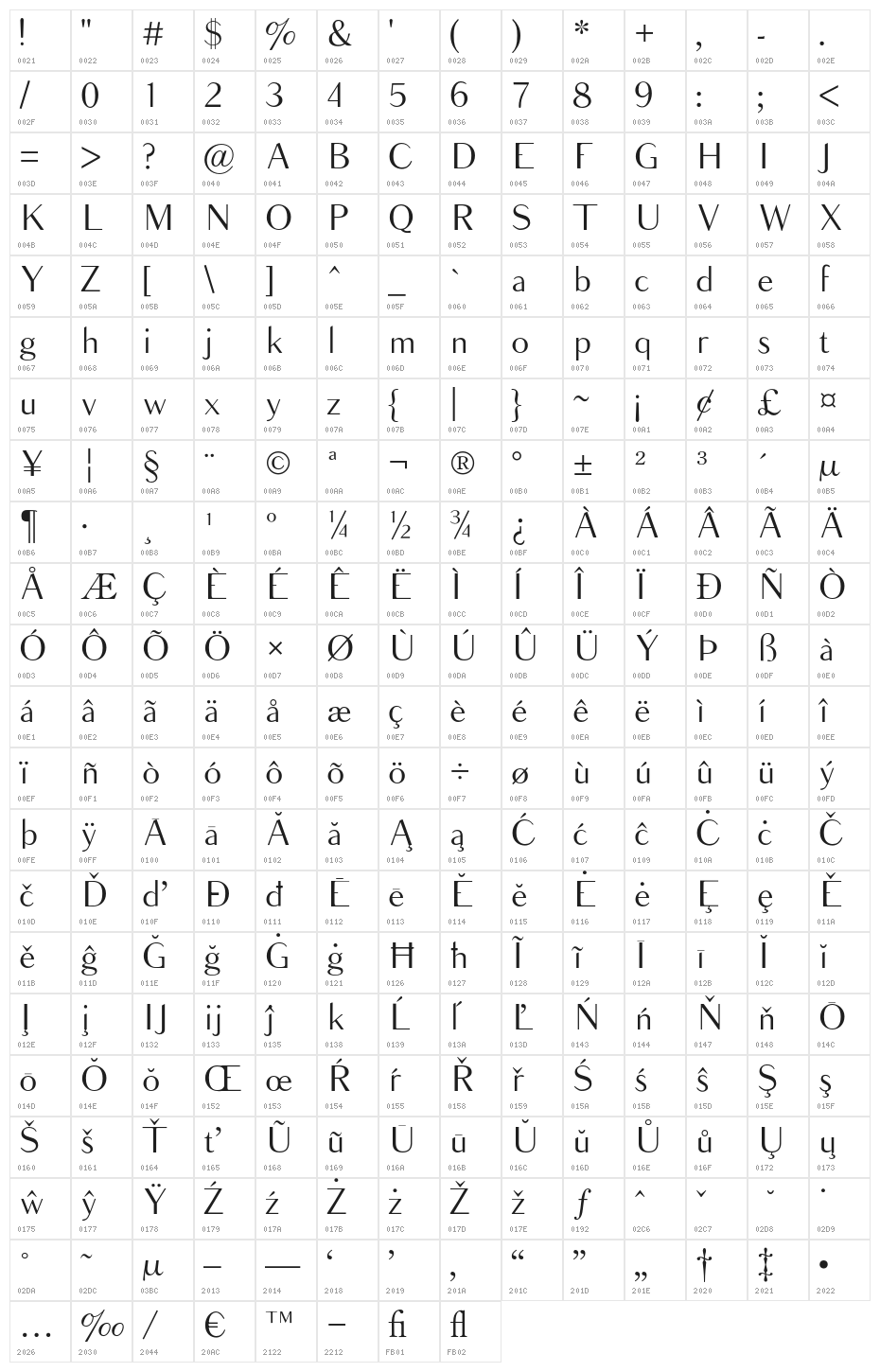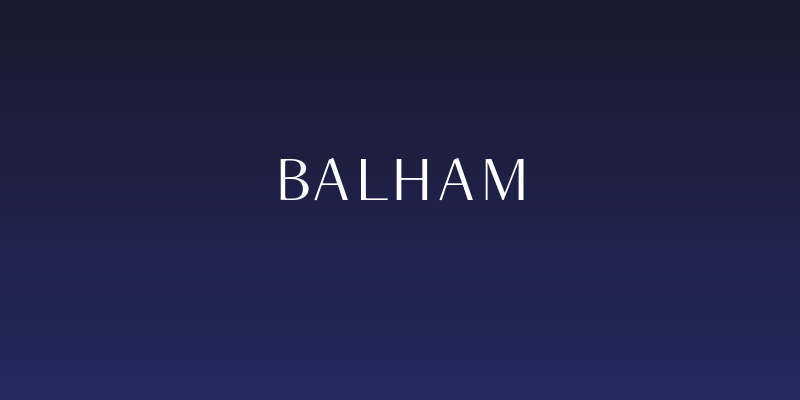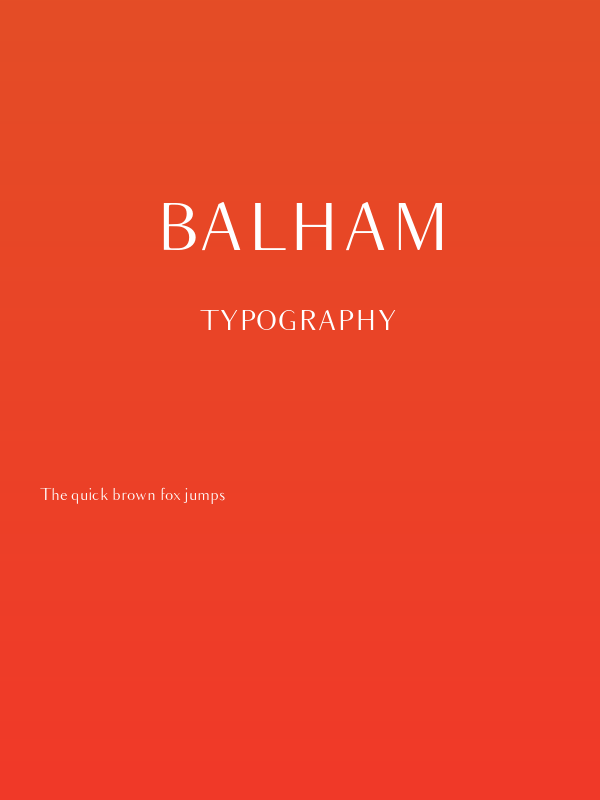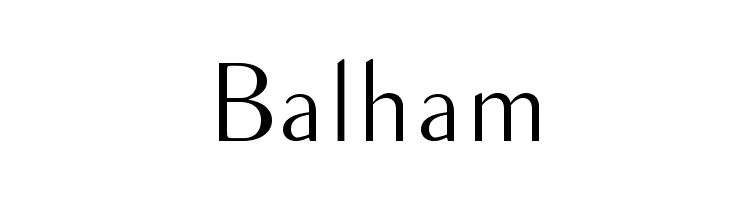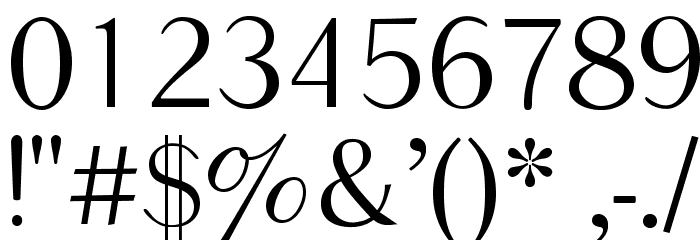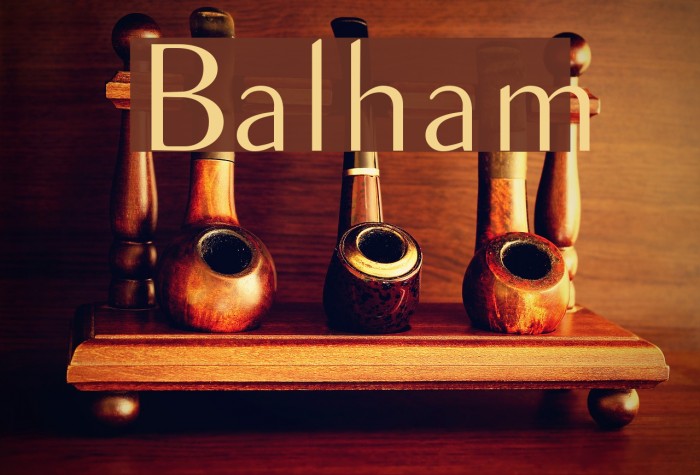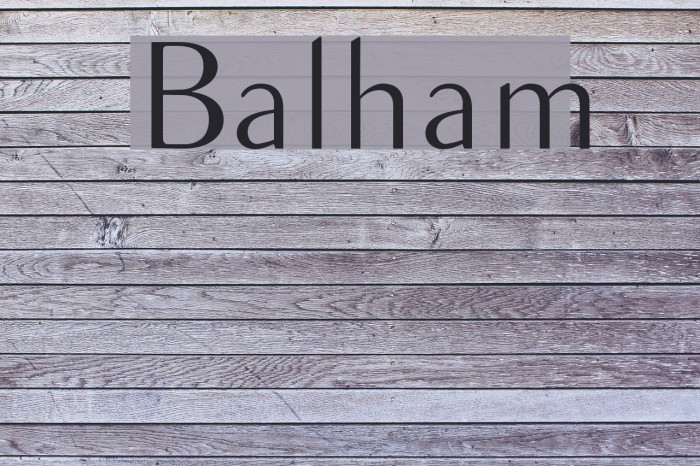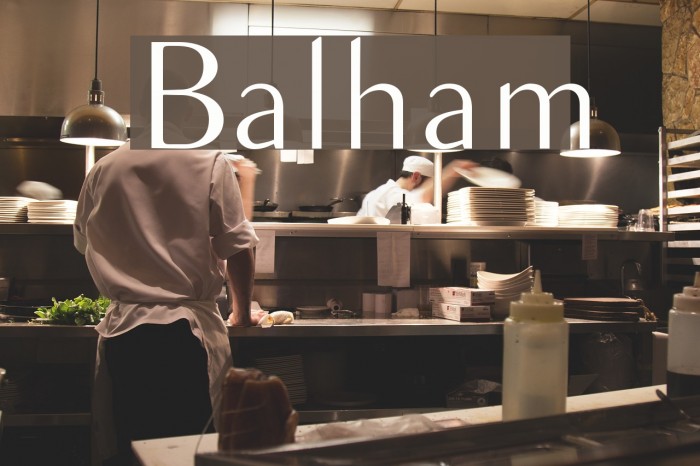
Balham Font
Balham Description
This font exhibits a refined and elegant serif style, characterized by its clean lines and balanced proportions. The uppercase letters are tall and stately, while the lowercase letters maintain a harmonious flow with subtle curves. The numerals are distinct and easily readable, complementing the overall sophisticated appearance. Special characters are thoughtfully designed, enhancing the font's versatility. The font's contrast is moderate, providing a pleasing visual rhythm that is neither too stark nor too subtle. Its timeless appeal makes it suitable for a wide range of applications.
| Proposed Projects | Ideal for editorial design, book covers, branding, and high-end product packaging. |